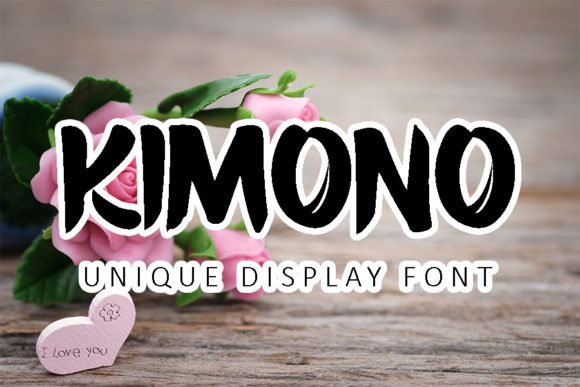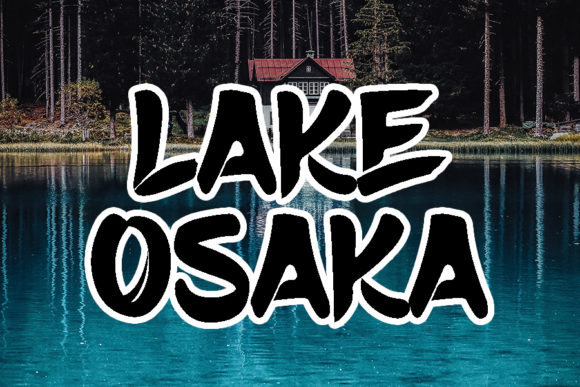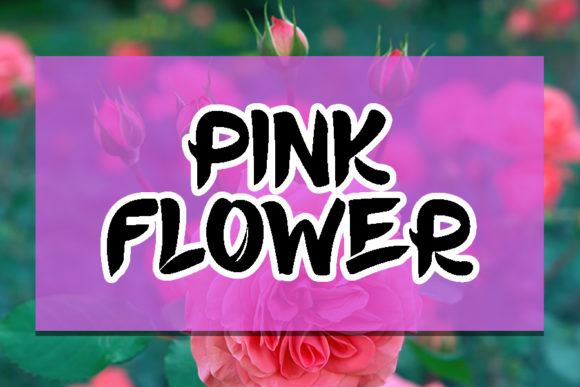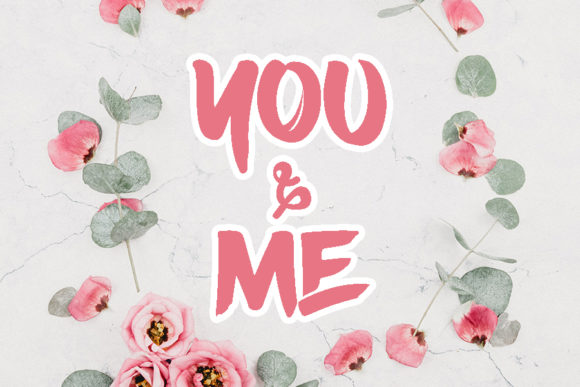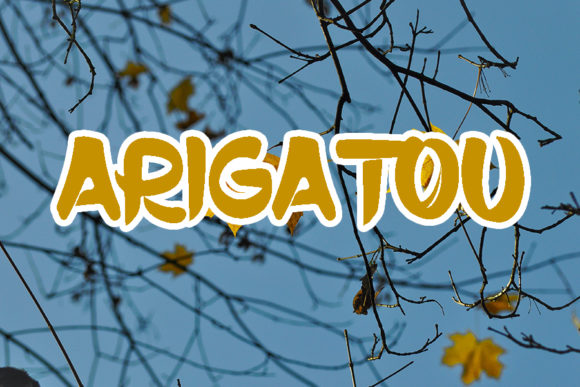
The Perfect Accessory for Your Design Projects
Have you ever been working on a design project, pouring your heart and soul into it, only to feel like something’s missing? That’s where the perfect accessory comes in – a font that elevates your entire design to the next level. For designers, finding the right font can be a game-changer, and that’s where the Kimono Font comes in.
| 📌 Product Name | Kimono Font |
| 👤 Author | ONE DESIGN |
The Kimono Font is a stunning display font that’s perfect for a wide range of design projects, from branding and headings to wedding designs, invitations, and more. Its unique style and versatility make it an invaluable asset for designers looking to add a touch of elegance and sophistication to their work. With the Kimono Font, you can take your designs to the highest level and leave a lasting impression on your audience.
Kimono Font Key Features
- Font Family: Kimono Font is a unique, hand-drawn font designed to evoke the elegance of traditional Japanese kimonos. It comes in two font families: Kimono and Kimono Outline.
- Unique Characteristics: Kimono Font features intricate, hand-drawn designs and subtle texture, giving it a distinctive and authentic look. The font also includes a range of swashes and ligatures, adding to its unique charm.
- Language Support: Kimono Font supports a wide range of languages, including Latin, Cyrillic, and Japanese characters, making it a versatile choice for designers working on international projects.
- Number of Glyphs: The font includes over 400 glyphs, covering a wide range of characters and symbols, including punctuation, numbers, and special characters.
Kimono Font Review
I recently had the chance to work with the Kimono Font, and I must say it’s an interesting choice for designers. ✨ One thing that really stands out is its unique aesthetic. The font’s blend of traditional and modern elements makes it perfect for projects that require a touch of cultural flair.
- ✨ The font’s versatility is a major plus. It can be used for a wide range of applications, from branding and advertising to editorial and digital content.
- ✨ The font’s unique characters and symbols add an extra layer of visual interest, making it perfect for designers who want to stand out from the crowd.
However, there are some limitations to consider. ⚠️ The font can be a bit difficult to read at smaller sizes, and some of the characters may not render properly on certain devices.
- ⚠️ The font’s kerning can be a bit off, which may require additional adjustments to ensure proper spacing.
- ⚠️ Some of the font’s characters may not be suitable for certain languages or character sets.
Overall, the Kimono Font is a great choice for designers who want to add a touch of cultural flair to their projects. While it may have some limitations, its unique aesthetic and versatility make it a solid addition to any designer’s toolkit.
Getting the Most Out of Kimono Font
To get the most out of the Kimono font, consider the following tips:
- Use the font in combination with other Asian-inspired design elements to create a cohesive look.
- Pair the font with bold, colorful graphics to create a striking visual effect.
The Kimono font is commonly used in:
- Asian-inspired designs, such as Japanese or Chinese-themed websites or marketing materials.